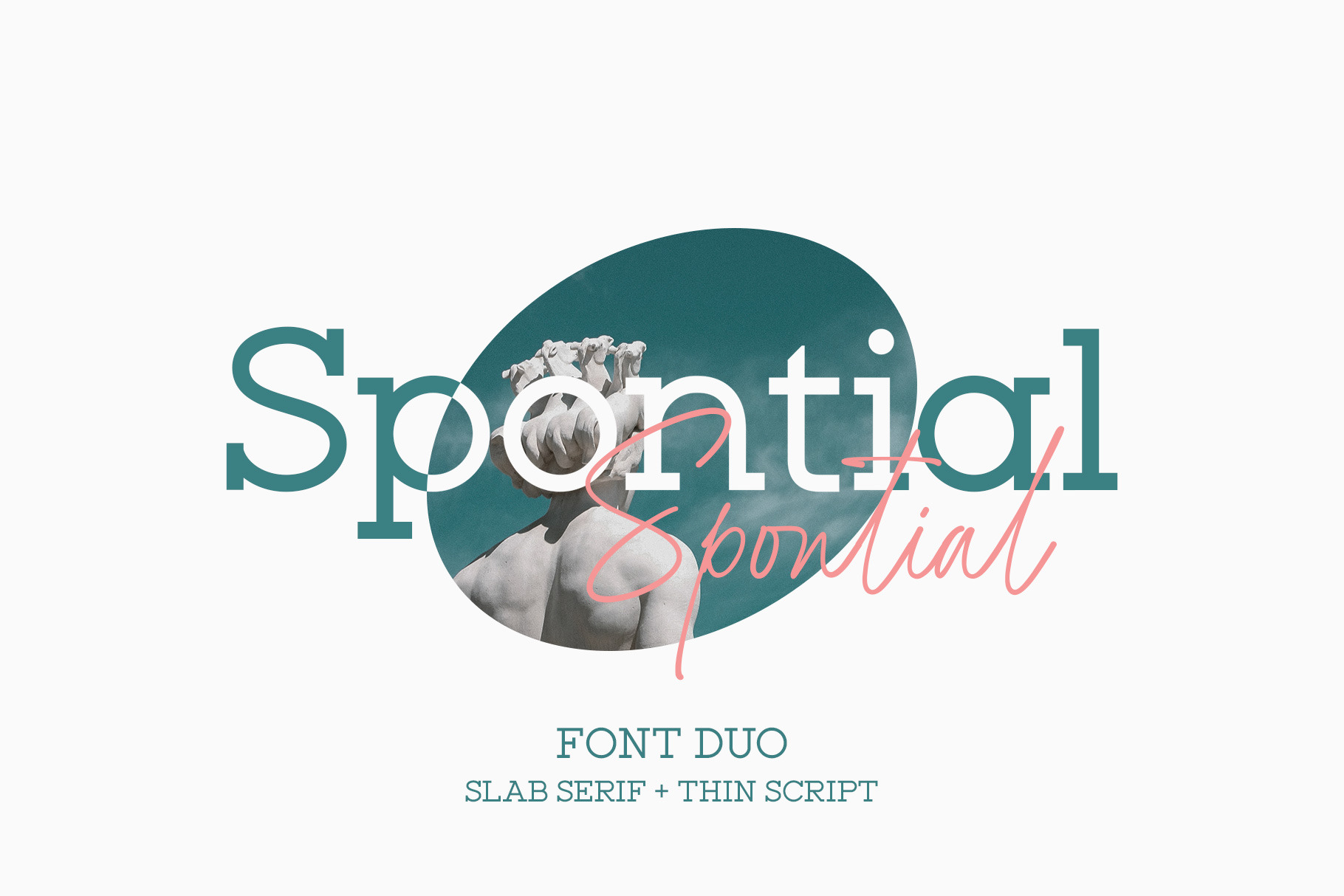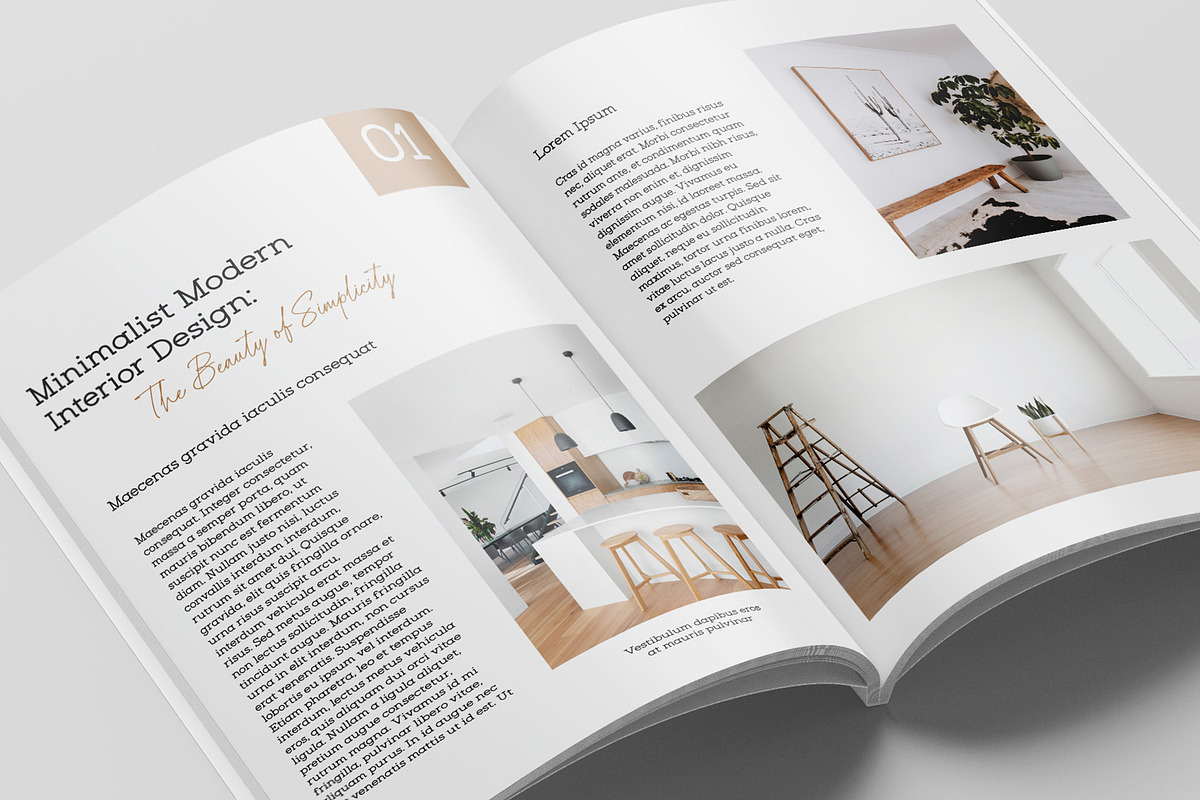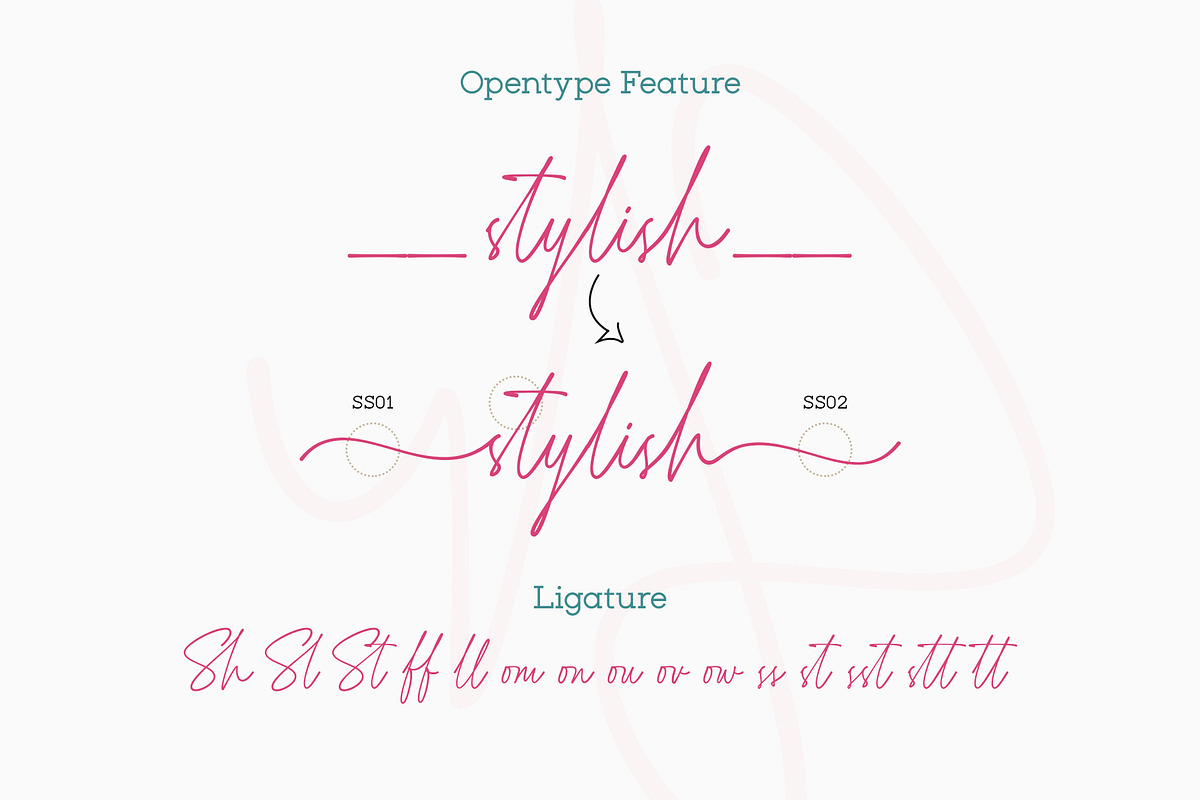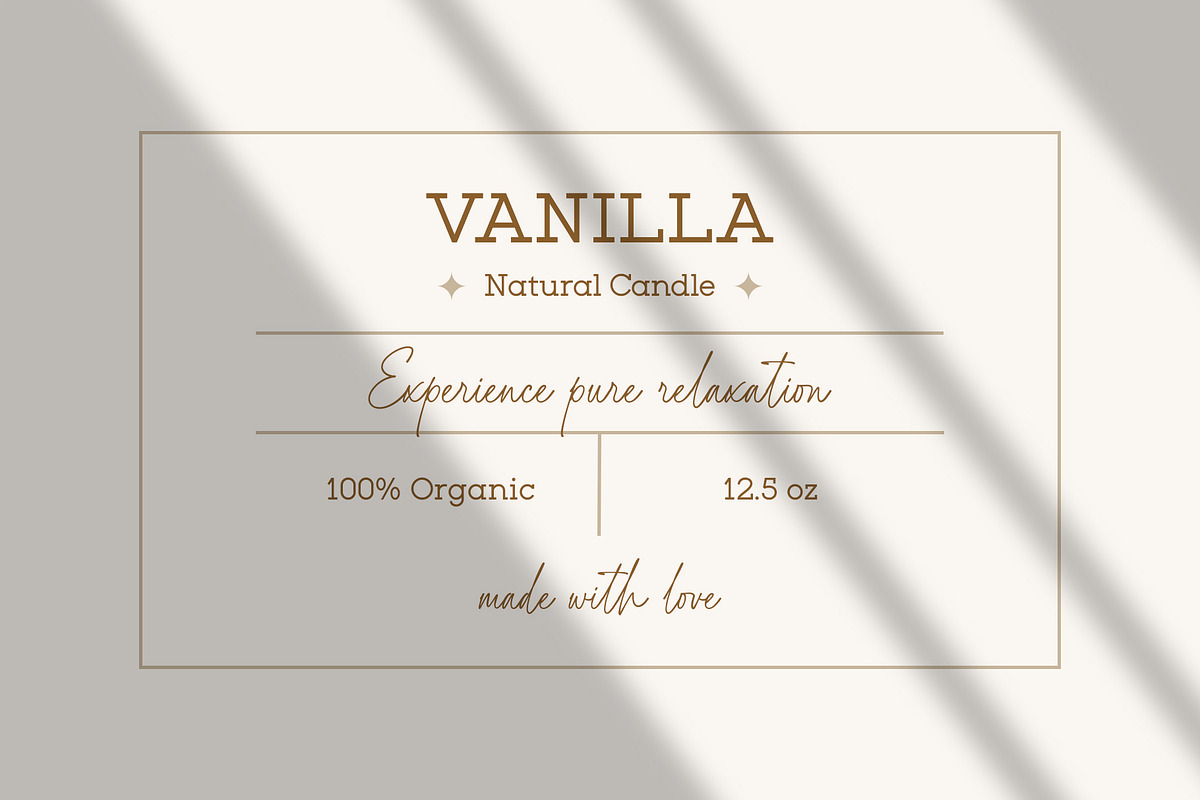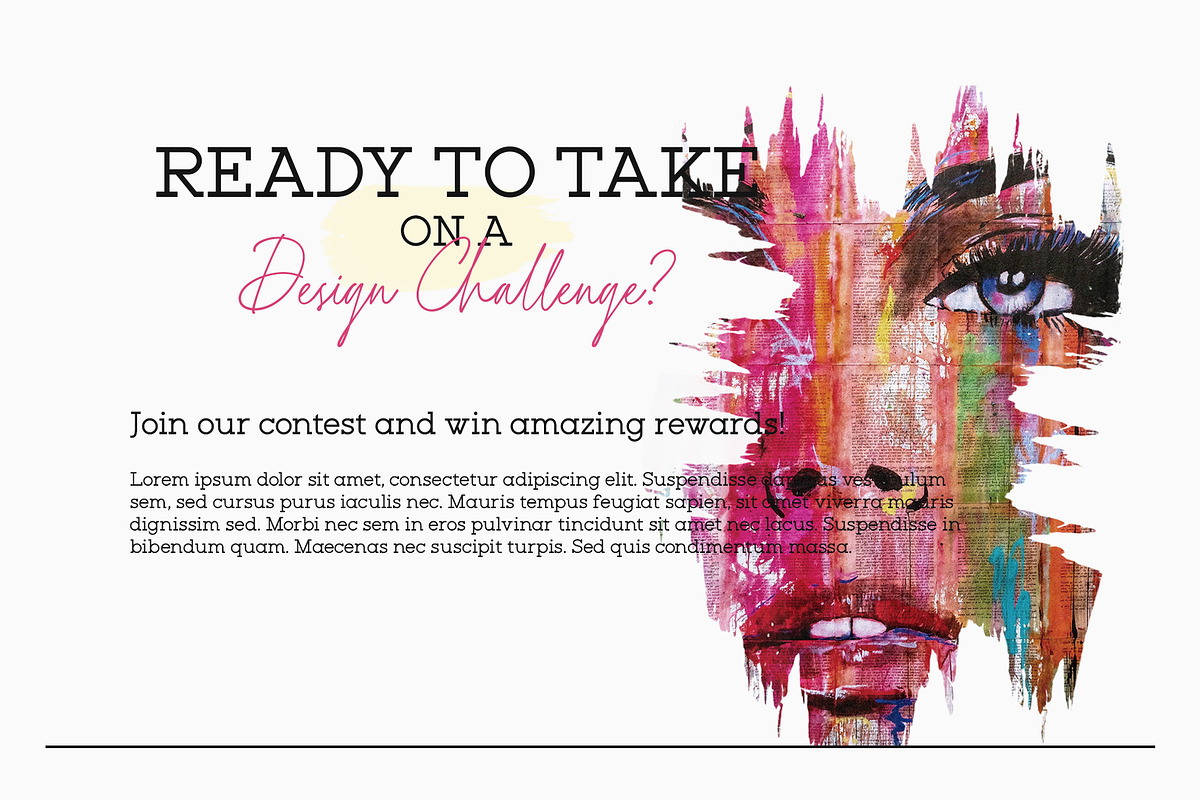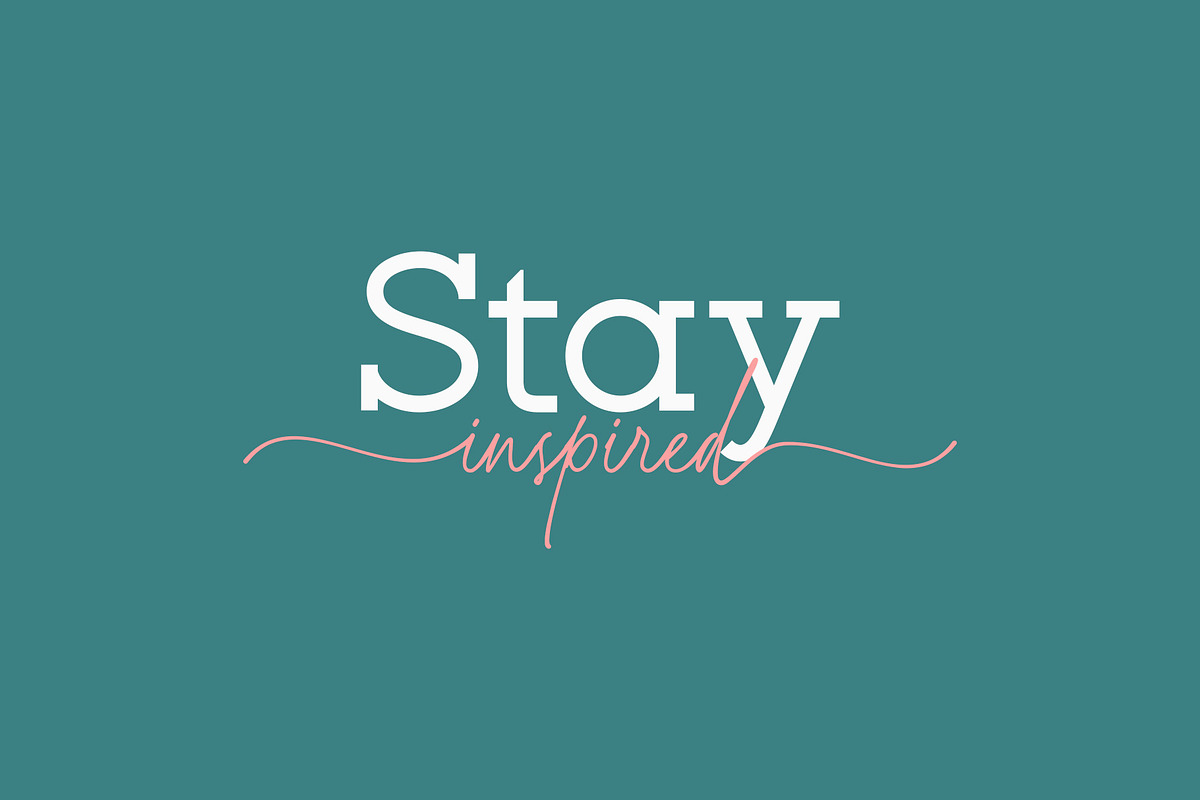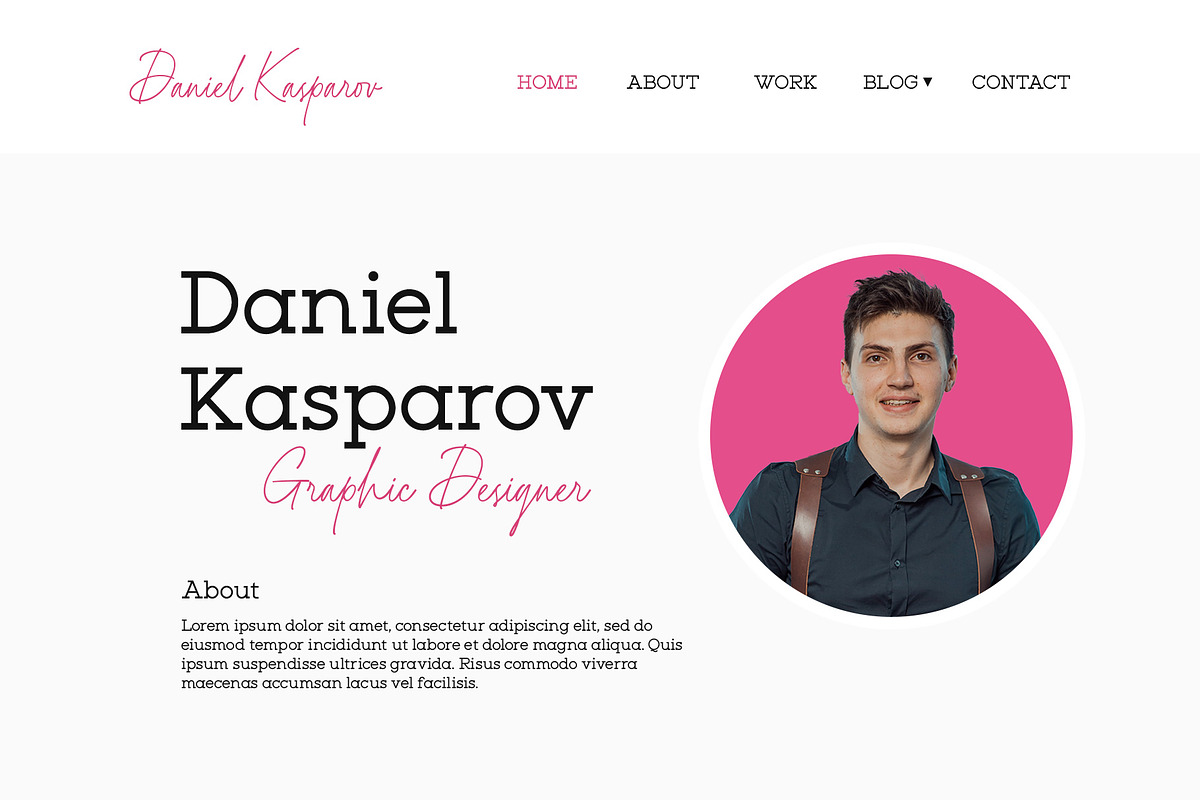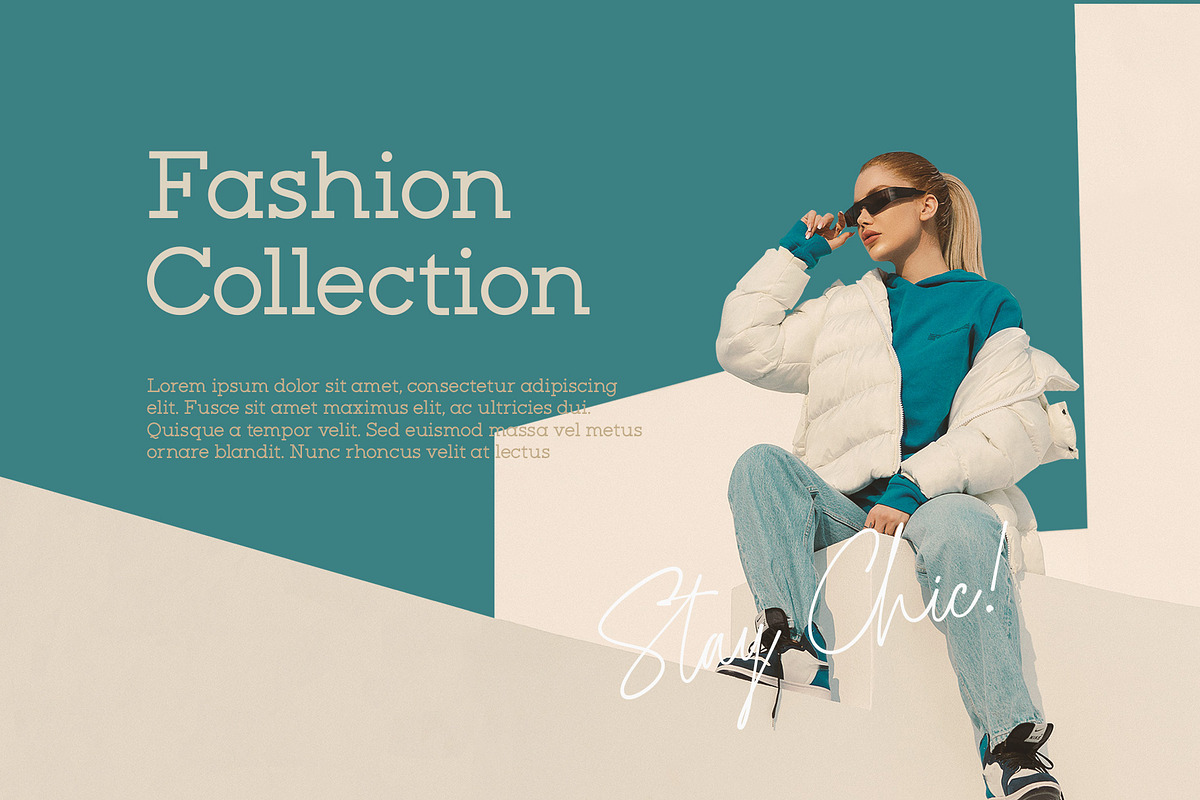
Spontial | Font Duo
Spontial consists of two fonts, Script and Slab serif, designed to complement each other perfectly. Whether together or separate, these fonts will add an elegant and classy touch to your design. It is perfect for many different projects such as logos & branding, invitation, stationery, wedding designs, signature, product designs, labels, photography, and much more!
- Script & Slab Serif
- Stylistic Set
- SS01: Add 2x underscore before lowercase a-z. Ex: __a
- SS02: Add 2x underscore after lowercase a-z. Ex: a__